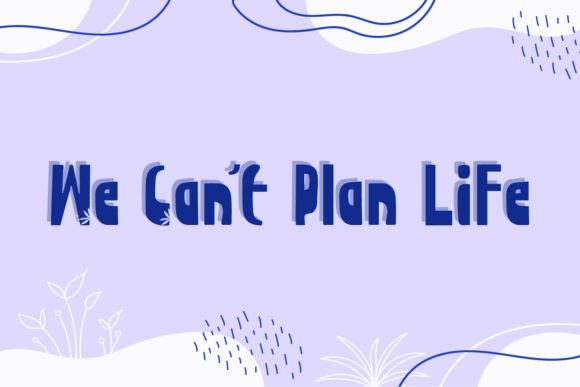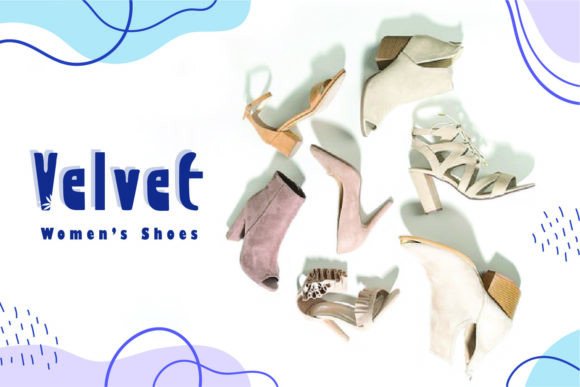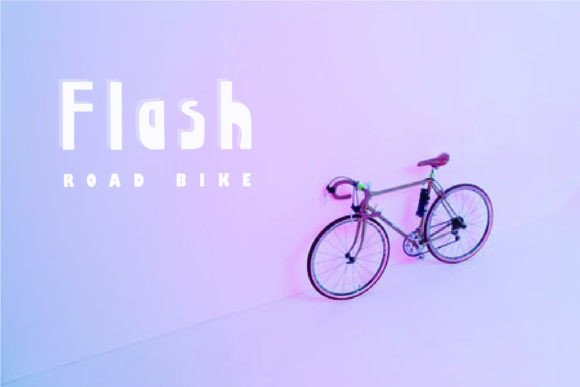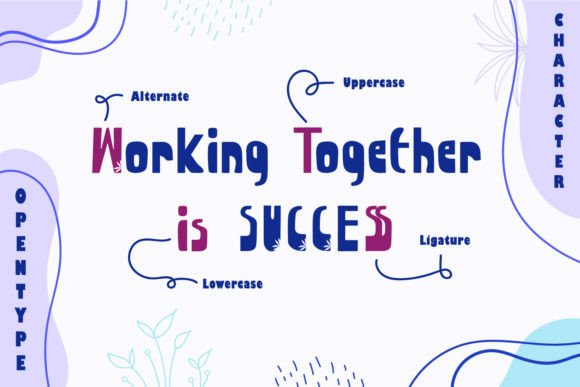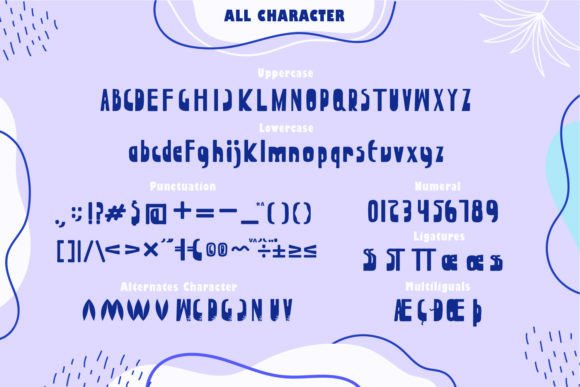
Have you ever stared at a blank canvas, searching for the perfect font to bring your design to life? The blank page can be daunting, but the excitement of creating something new is exhilarating. This is where the right font can make all the difference.
Enter Braws Font, a modern and unique display font that embodies a youthful vibe. Whether you’re designing invitations, greeting cards, branding materials, or business cards, Braws Font is sure to add a touch of personality to your work. As a designer, you’re constantly on the lookout for fonts that can elevate your designs and make them stand out. Braws Font is a valuable addition to any designer’s toolkit, offering endless possibilities for creativity and self-expression.
With its versatility and modern feel, Braws Font is perfect for quotes, posters, and more. Its unique design elements make it an excellent choice for designers who want to add a touch of sophistication and whimsy to their work.
Braws Font Key Features
- Font Family: Braws Font is a modern sans-serif font with a unique blend of geometric and organic elements.
- Unique Characteristics: Braws Font features a distinctive x-height and geometric terminals, giving it a modern and sophisticated look.
Braws Font Review
First impressions are everything, and the Braws Font certainly makes a statement. Its unique blend of geometric and script elements ✨ really sets it apart from other fonts. The combination of sharp lines and smooth curves creates a visually striking effect that’s sure to grab attention.
One of the standout features of Braws is its versatility. It’s equally at home in bold, eye-catching headlines as it is in more subdued body text ✨. This makes it a great choice for a wide range of design applications, from logos and branding to website and magazine design.
However, as with any font, there are some limitations to be aware of. Braws can be a bit difficult to read at smaller font sizes, particularly in digital formats ⚠️. Additionally, the font’s complexity can make it challenging to pair well with other typefaces.
Overall, I think Braws is a great addition to any designer’s toolkit. Its unique style and versatility make it a great choice for a wide range of design applications. Just be sure to use it wisely and pair it with complementary typefaces to get the best results.
- Unique blend of geometric and script elements
- Great for bold, eye-catching headlines or more subdued body text
- Challenging to read at smaller font sizes in digital formats
- Can be difficult to pair with other typefaces
The Braws Font is ideal for:
- Designing creative and unique typography for branding and marketing materials.
- Adding a touch of elegance and sophistication to invitations and event materials.
- Creating eye-catching headlines and titles for magazines, brochures, and websites.
Tips for Getting the Most Out of Braws Font
For best results, use the Braws Font in combination with bold colors and clean design elements to create a striking visual effect.